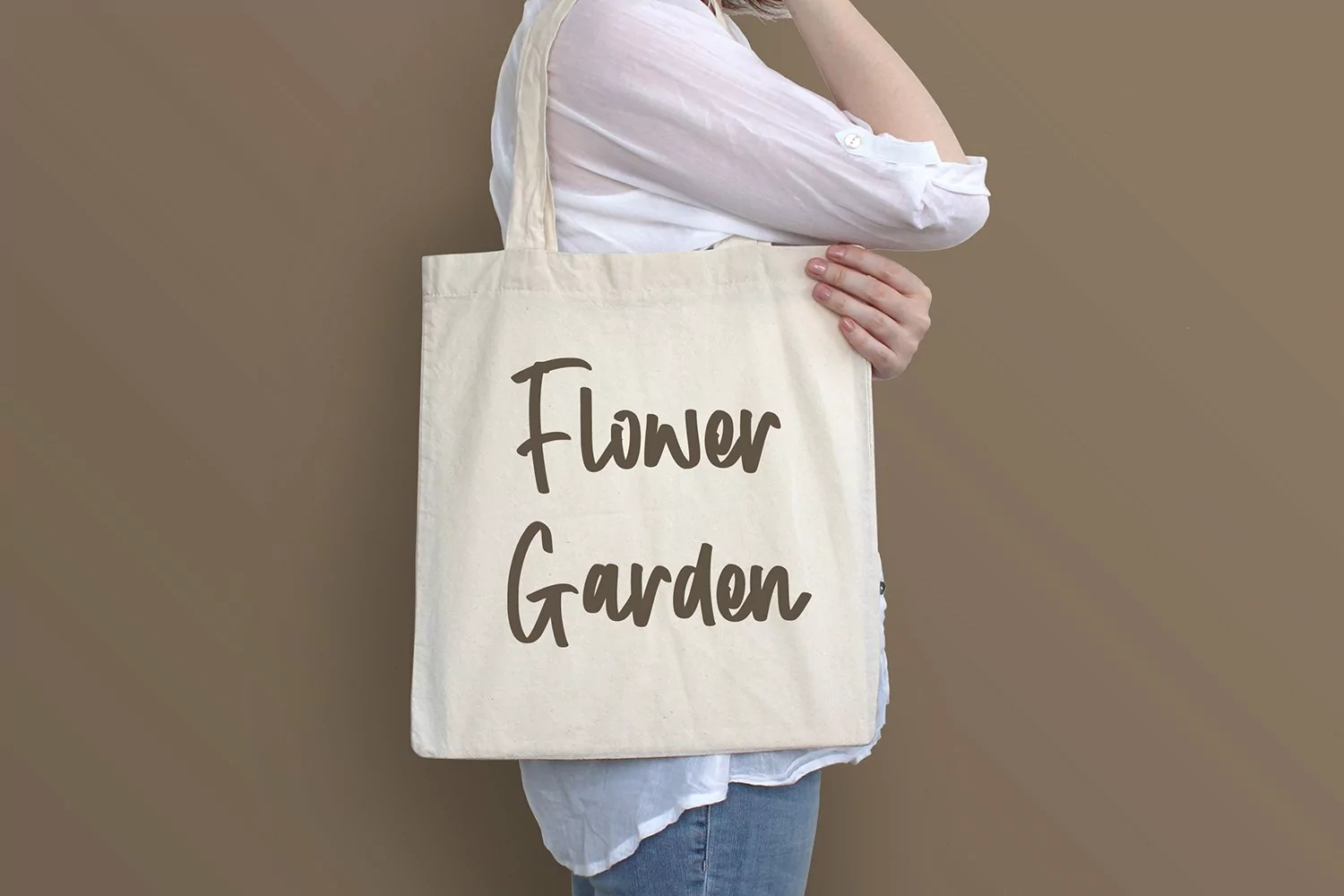
Collected - Cool & Fun Handletter Font that contain lowercase, uppercase, symbol, and also support multi language. There’s a lot ligatures in this font. This Font also comes with ligatures, alternates and many more. this font suitable for fashion, branding, catalog and other design what you want.